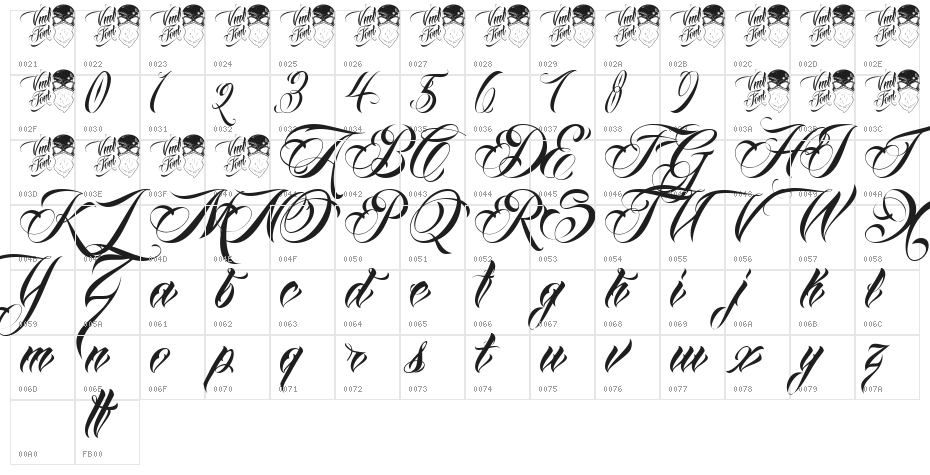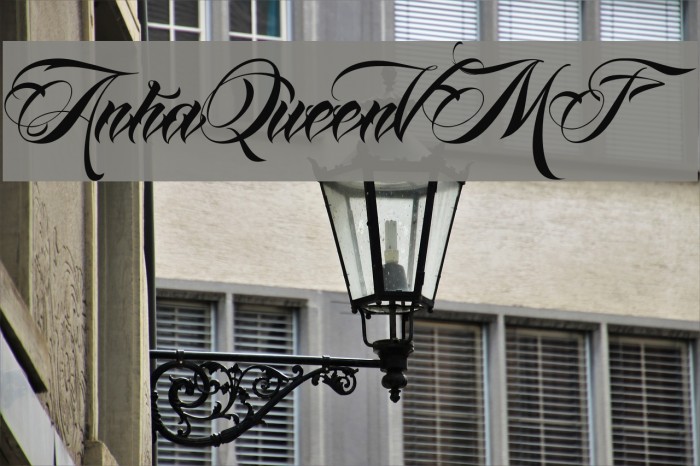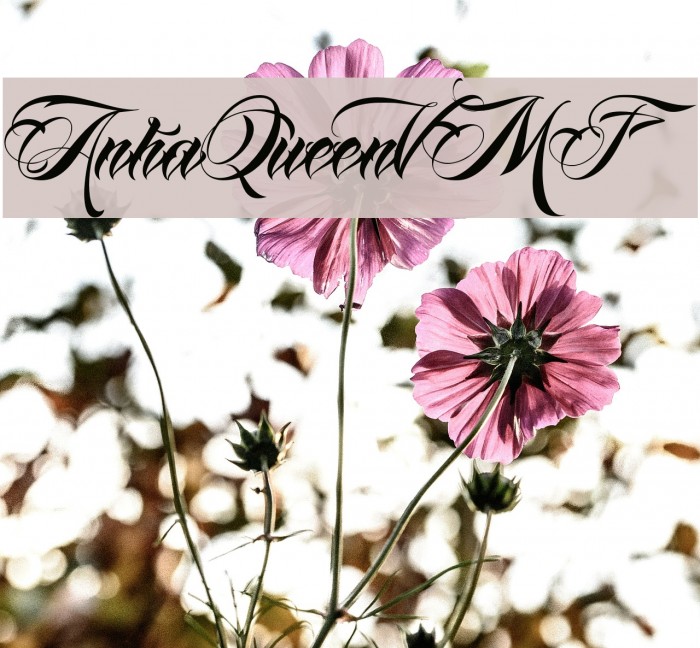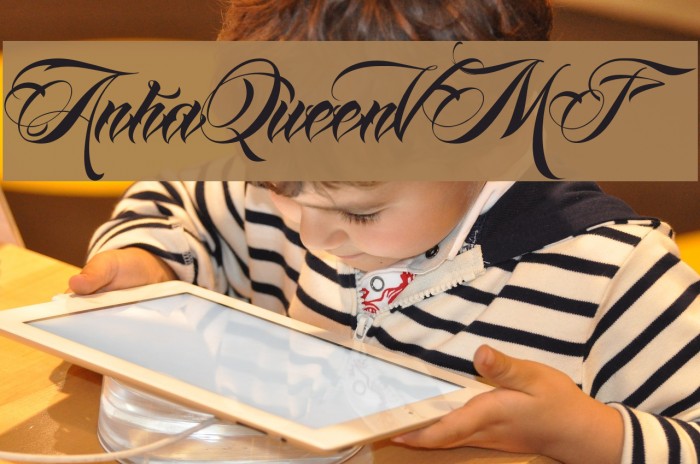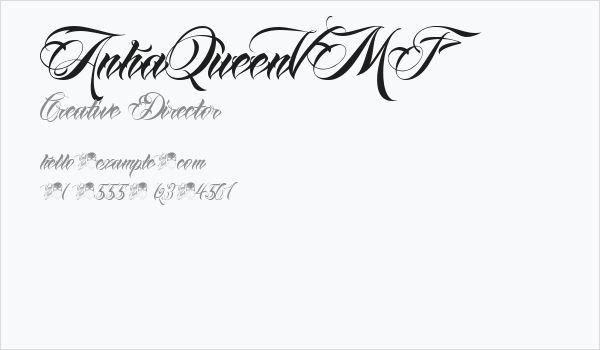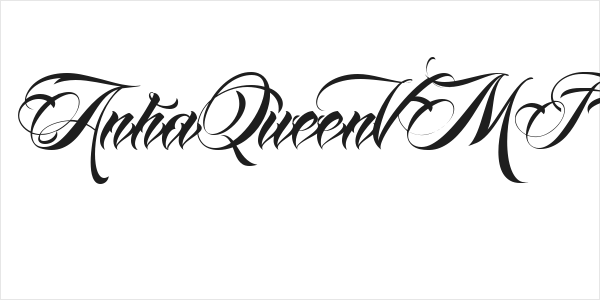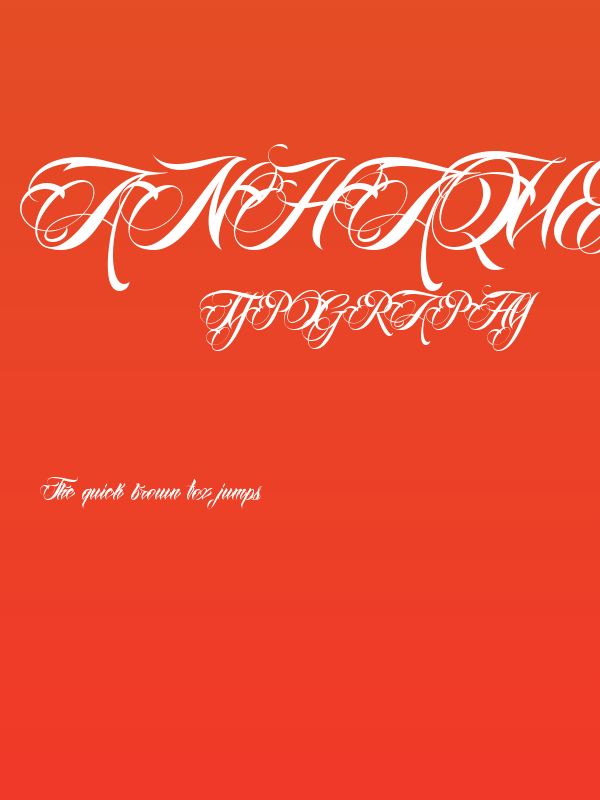
AnhaQueenVMF Font
AnhaQueenVMF Description
This font is an elegant and sophisticated script style, characterized by its flowing, cursive letters with elaborate swashes and flourishes. The uppercase letters are particularly ornate, with intricate loops and extensions that give a sense of movement and grace. The lowercase letters maintain a consistent style, complementing the uppercase with their own subtle curves and connections. The numbers and special characters are designed to match the overall aesthetic, ensuring a cohesive look across all text. This font exudes a sense of luxury and refinement, making it ideal for formal and decorative applications.